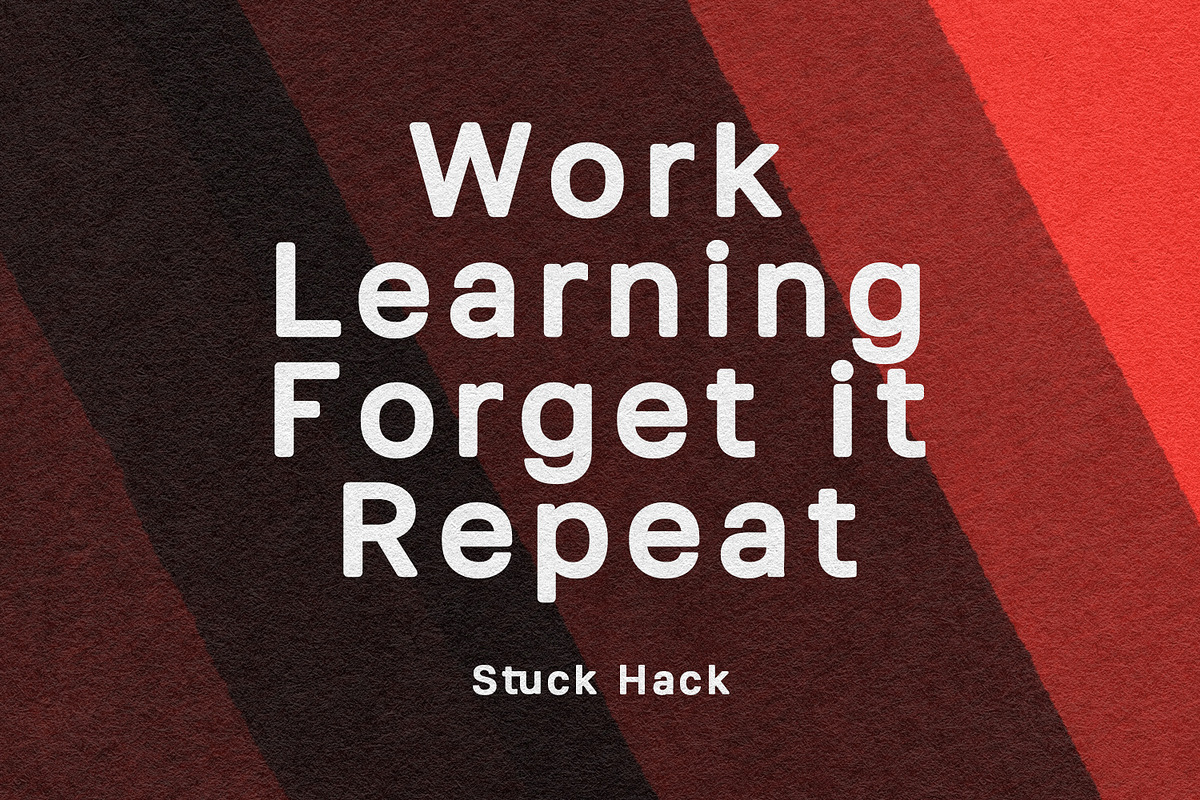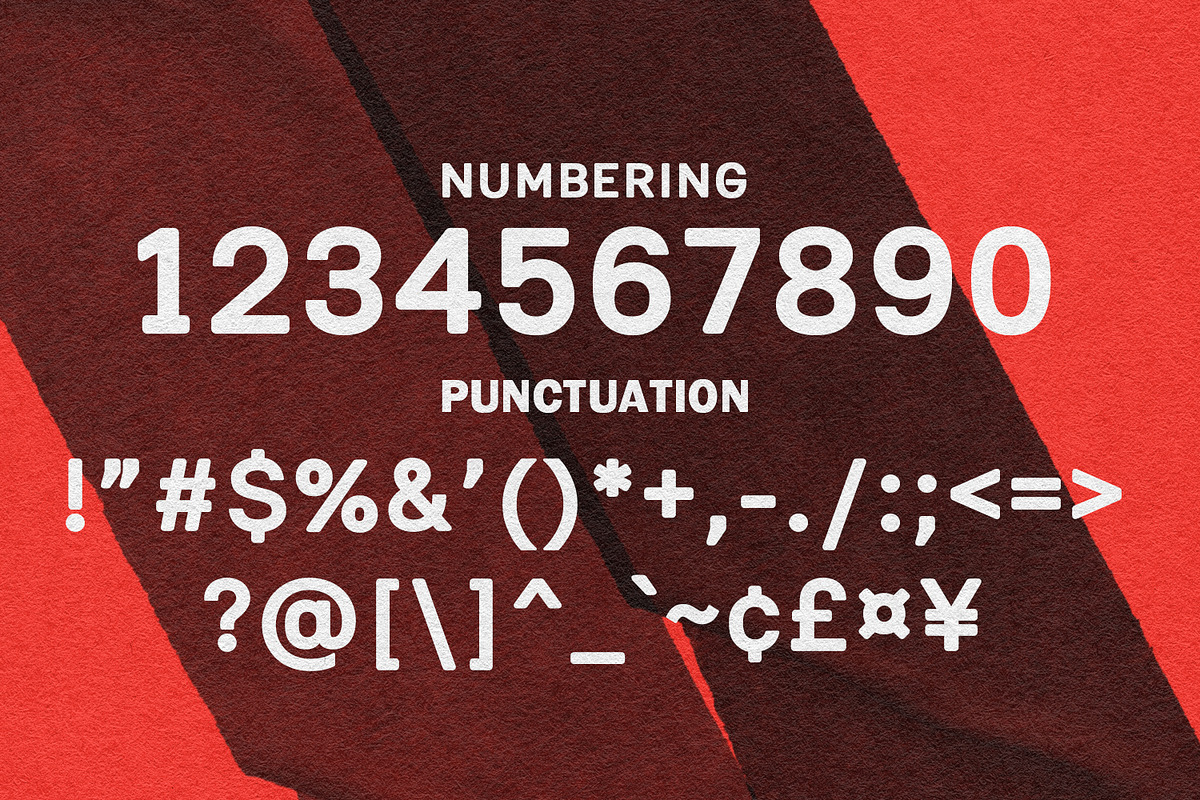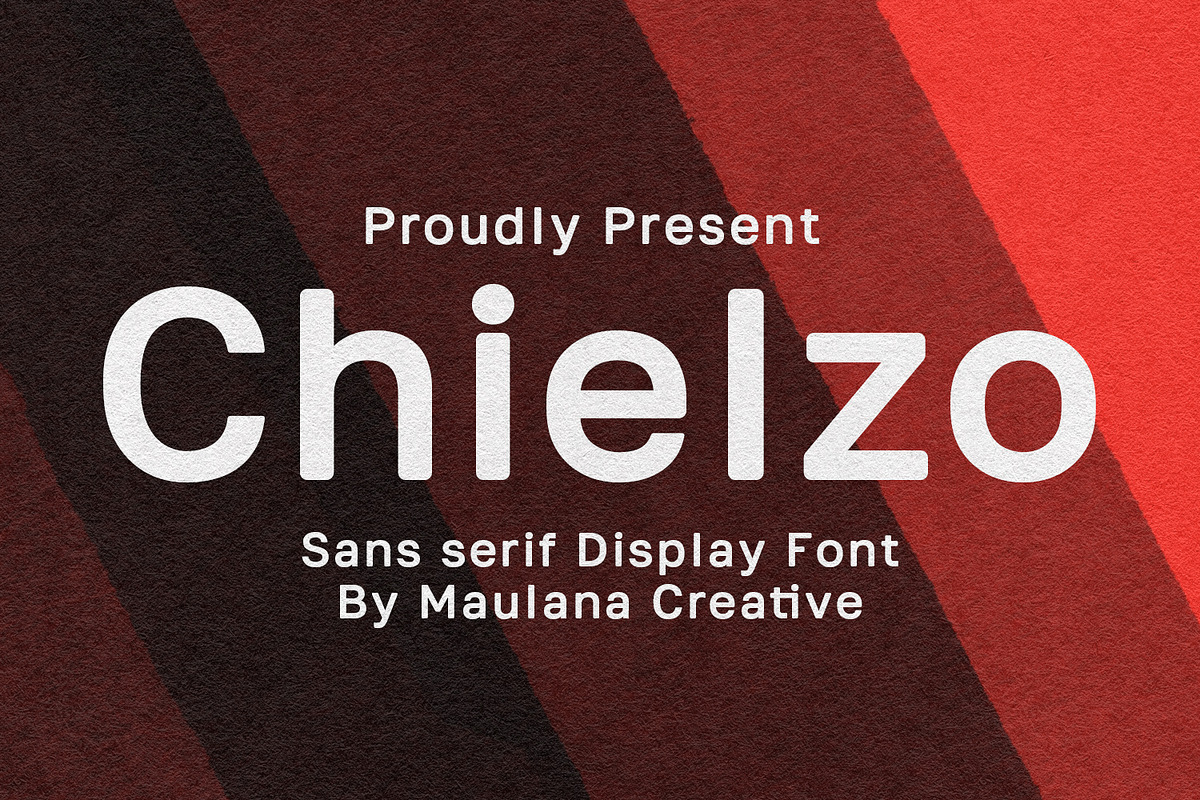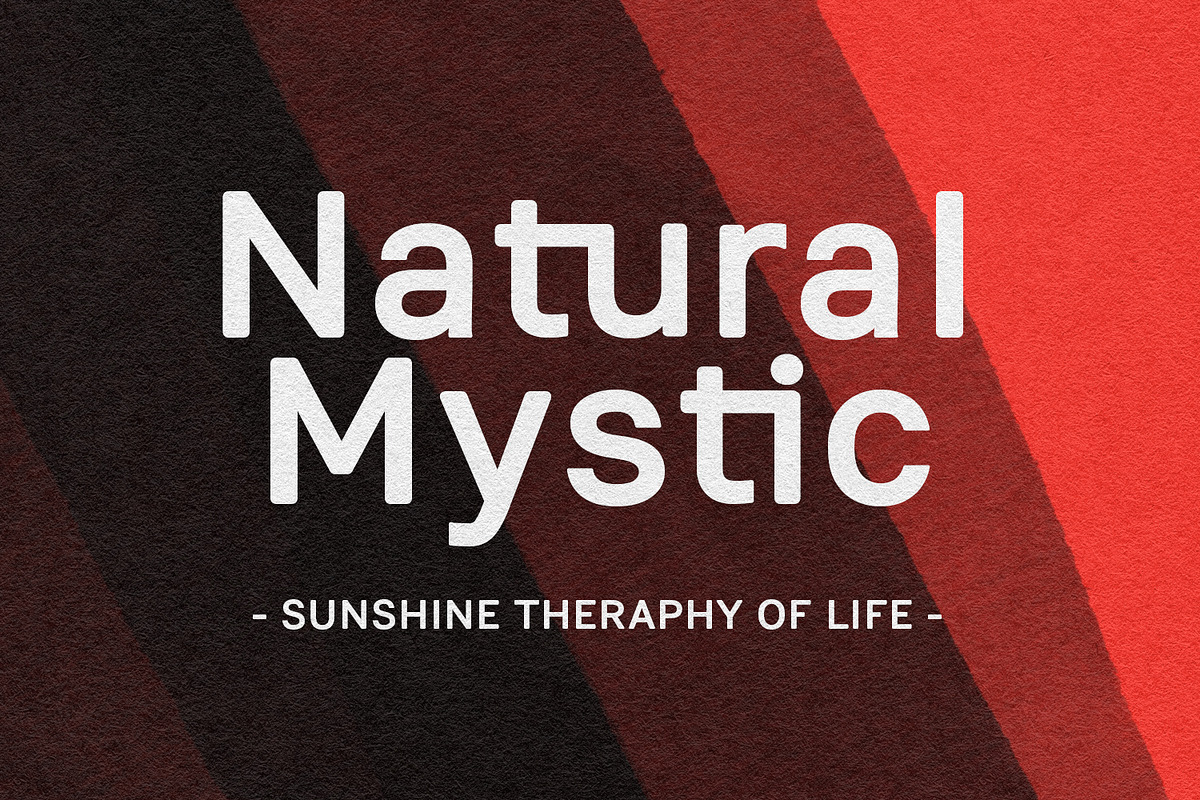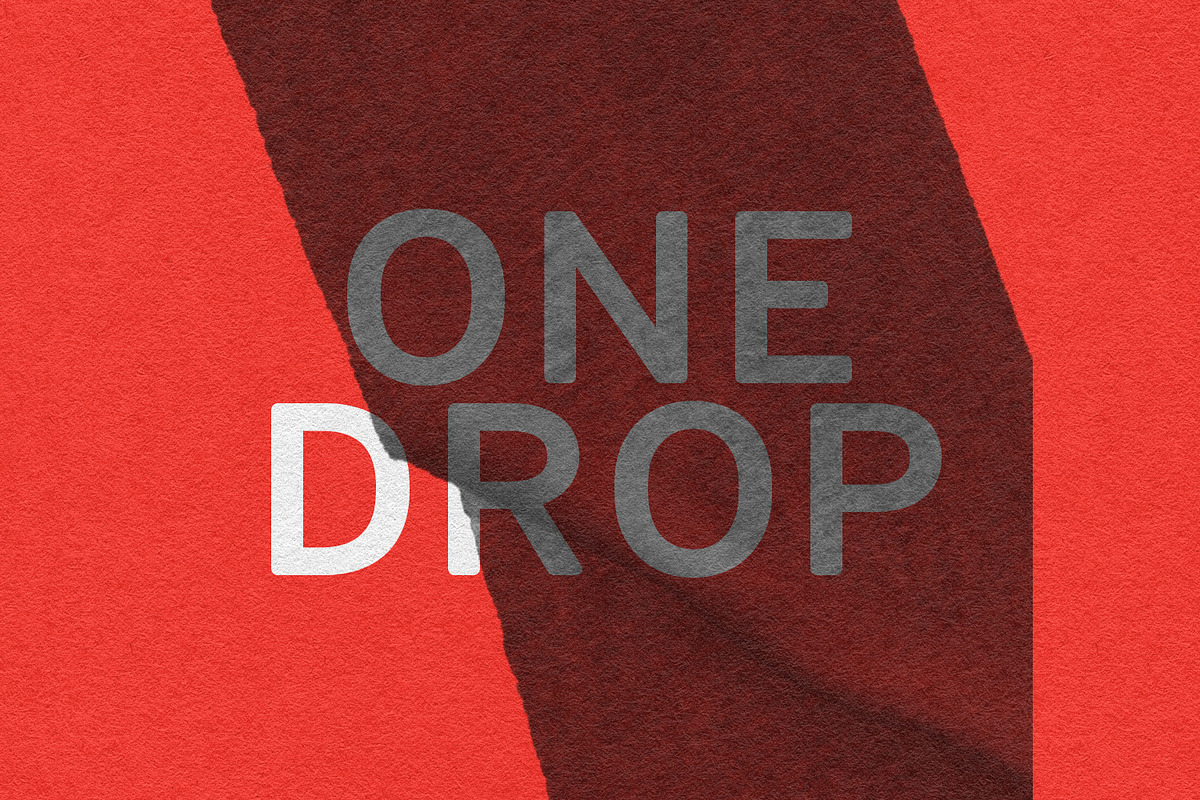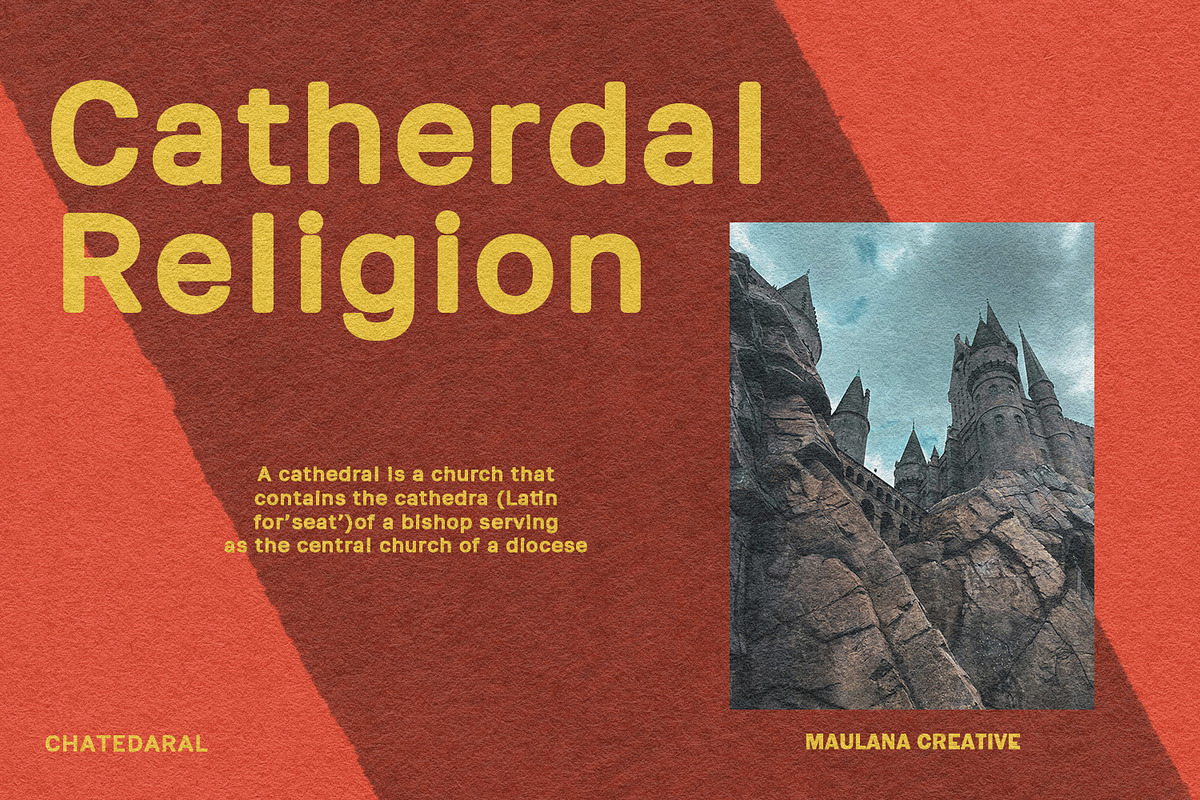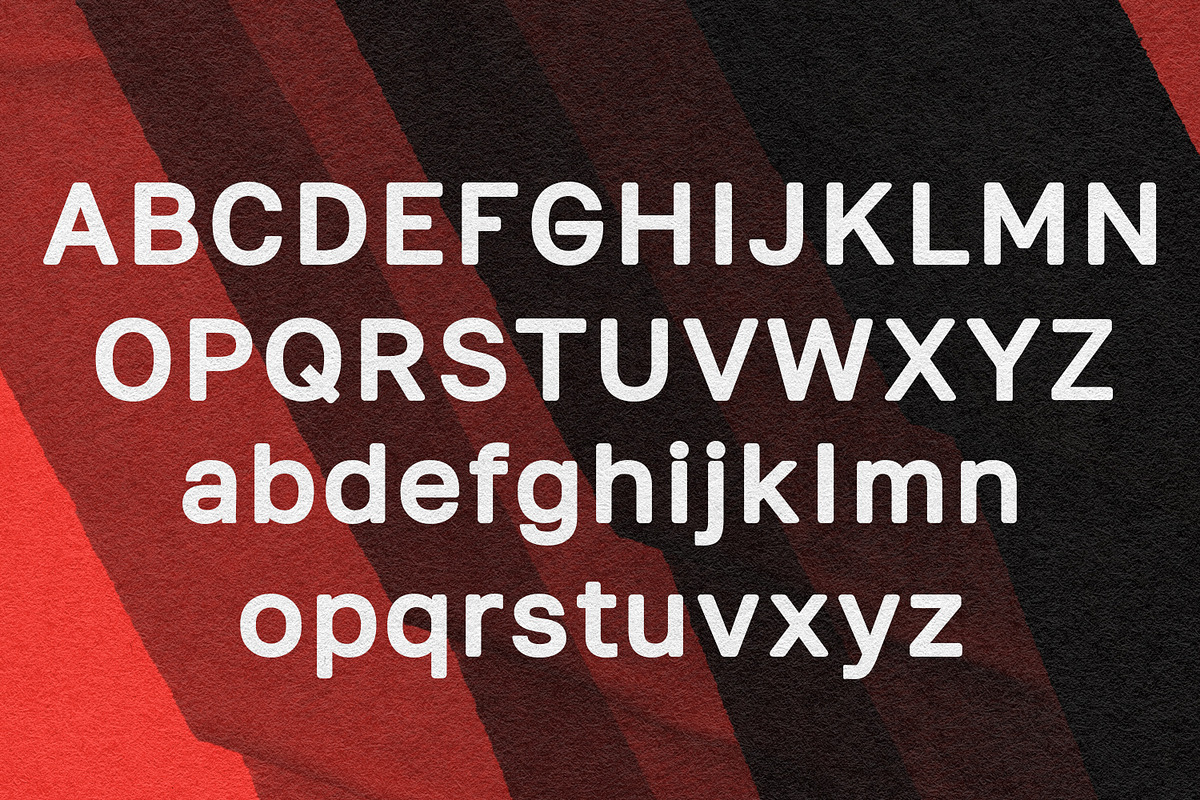
Chielzo Rounded Display Font
Chielzo rounded display sans serif font. With bold tall and rounded stroke, fun character with a bit of ligatures. To give you an extra creative work. Chielzo font support multilingual language. This font is good for logo design, Social media, Movie Titles, Books Titles, a short text even a long text letter and good for your secondary text font with sans or serif. Make a stunning work with Chielzo font.